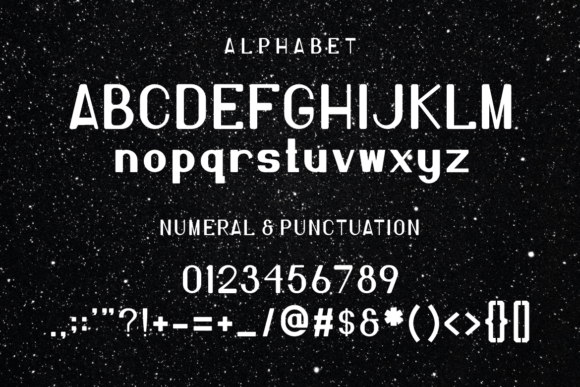
The Gathood Font: A Cool and Friendly Sans Serif for Your Creative Projects
An Honest Review of Gathood Font
Gathood is indeed a cool and friendly sans serif font that has won my heart. Here’s what I love about it:
- ✨ Clean and modern design: Gathood’s sleek lines and curves make it perfect for a wide range of projects, from branding to digital media.
- ✅ Highly legible: The font’s clear letterforms ensure that your text is easy to read, even at smaller sizes.
- 💬 Versatile: Gathood works well in both headings and body text, making it a great choice for projects that require a single font.
While Gathood is an excellent font, it’s not without its quirks:
- 🤔 Limited language support: Gathood currently supports a limited number of languages, so be sure to check its compatibility before using it in multilingual projects.
- ⚠️ No italic version: If you need an italic version of Gathood, you might need to look elsewhere or rely on faux italics.
The Backstory of Gathood Font
Gathood was designed by a team of creatives who wanted to create a font that was both modern and approachable. Inspired by the urban landscape and the world of design, Gathood is the result of a meticulous design process that aimed to create a font that’s both clean and friendly.